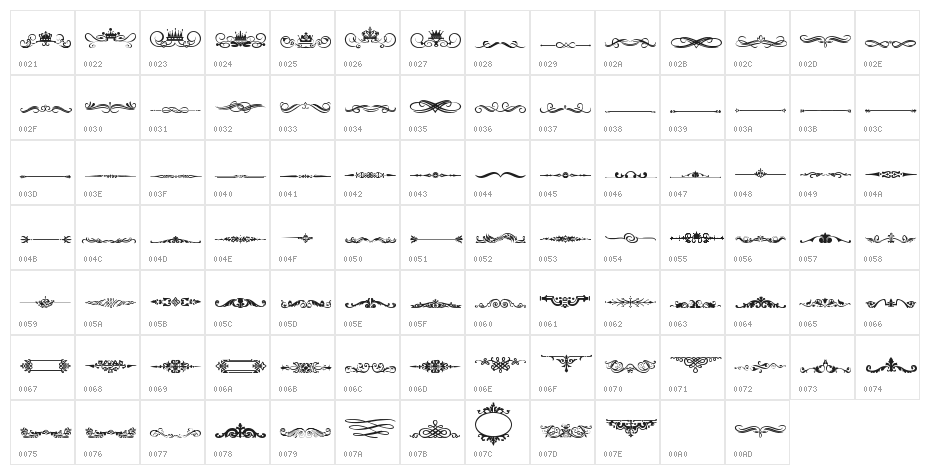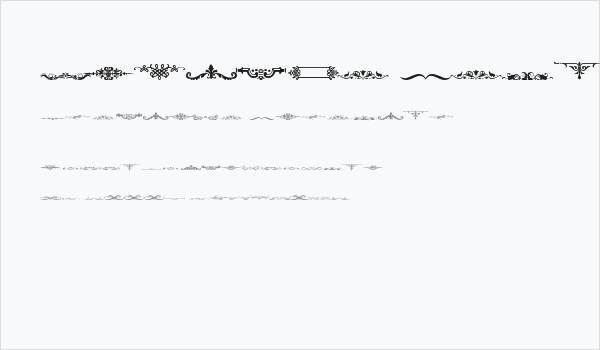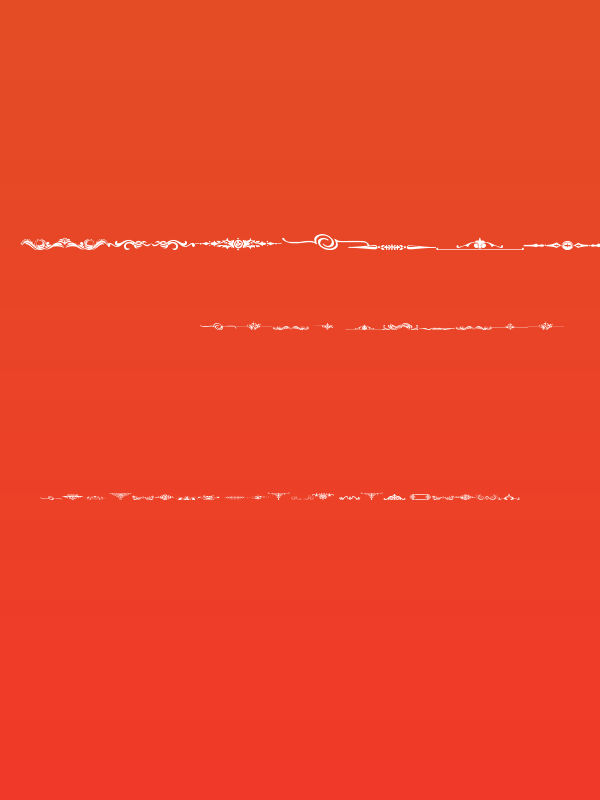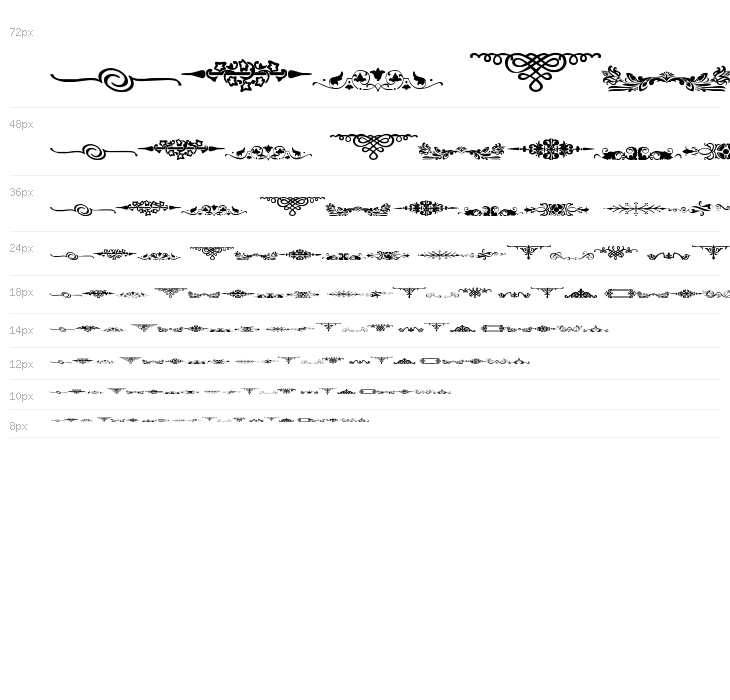
Vintage Decorative Signs 4 Font
Vintage Decorative Signs 4 Description
A collection of highly decorative, vintage-inspired ornamental line dividers featuring intricate swirls, flourishes, and embellishments, reminiscent of classic signage and Victorian design elements.
| Overall Style | Vintage, Decorative, Ornamental |
| Use Case | Dividers, Borders, Decorative accents |
| Proposed Projects | Wedding invitations, certificates, vintage posters, restaurant menus, book covers, decorative signage, branding for luxury or heritage products. |